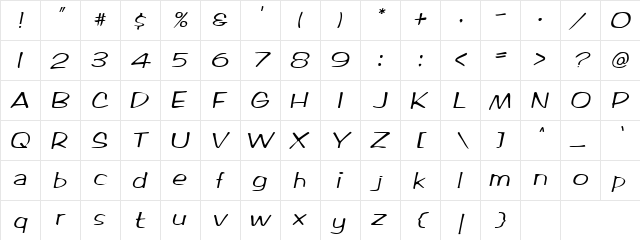
Iambus Oblique
Design Context for Iambus Typeface
Iambus takes a measured approach to typography — its balanced proportions and neutral character make it a reliable workhorse for both digital and print work. The slanted form adds forward momentum and visual energy.
Pro Tip: Try Iambus for annotation and caption copy alongside an upright companion — the contrast in angle creates a dynamic but ordered typographic system.